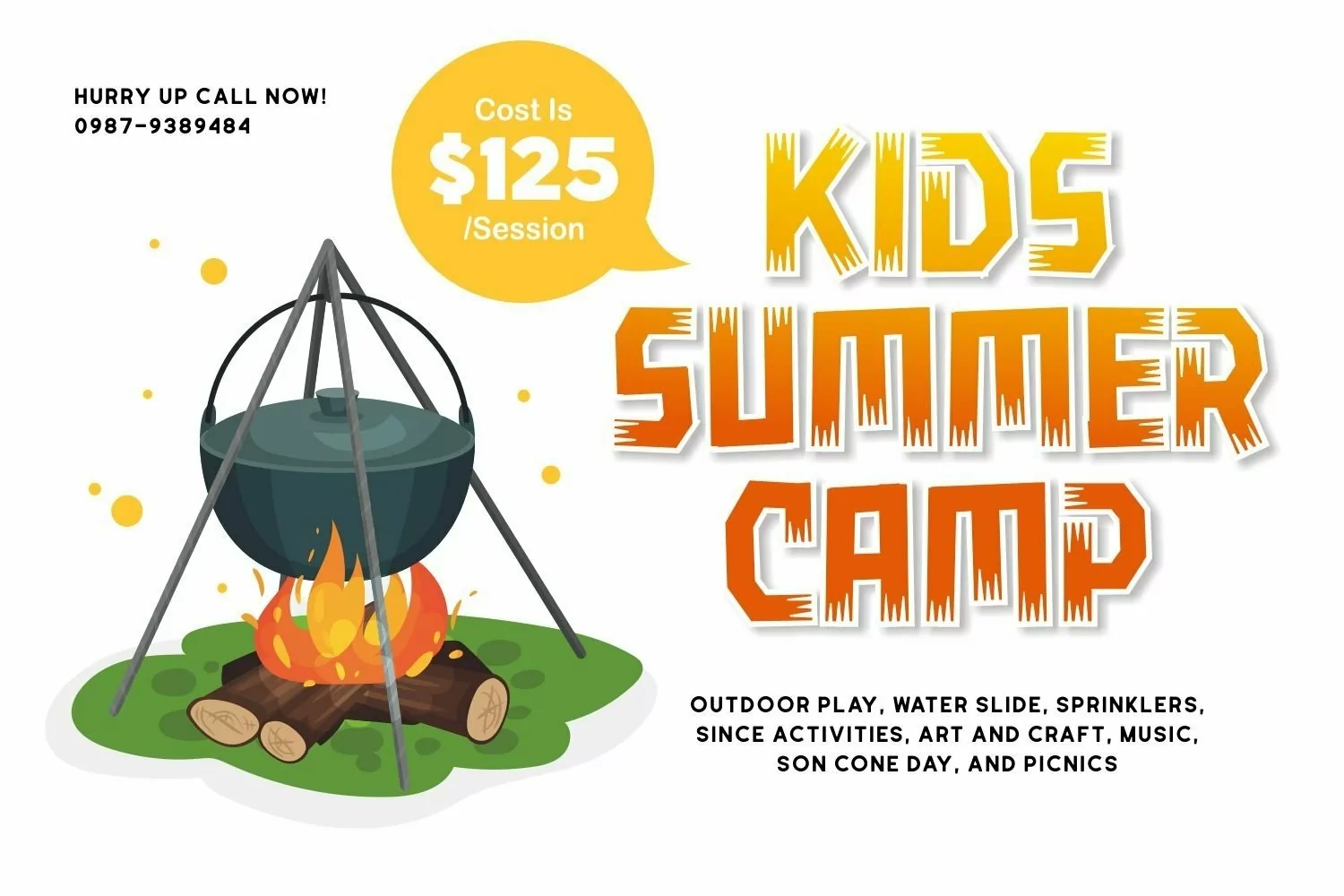
Raigots is a fun sans serif typeface come with playful themes. It matches applies in some designs such as the logotype, brand, packaging, quotes, kids poster, shirt, children’s book and more custom design. The features uppercase, lowercase, numeral, punctuation & symbol, multilingual support.